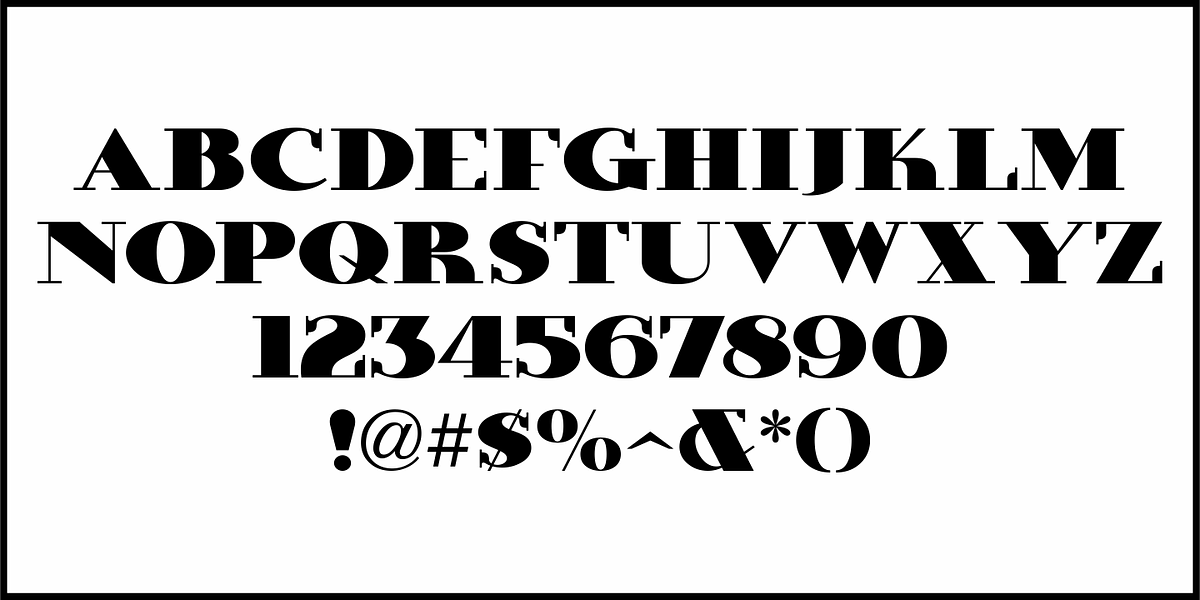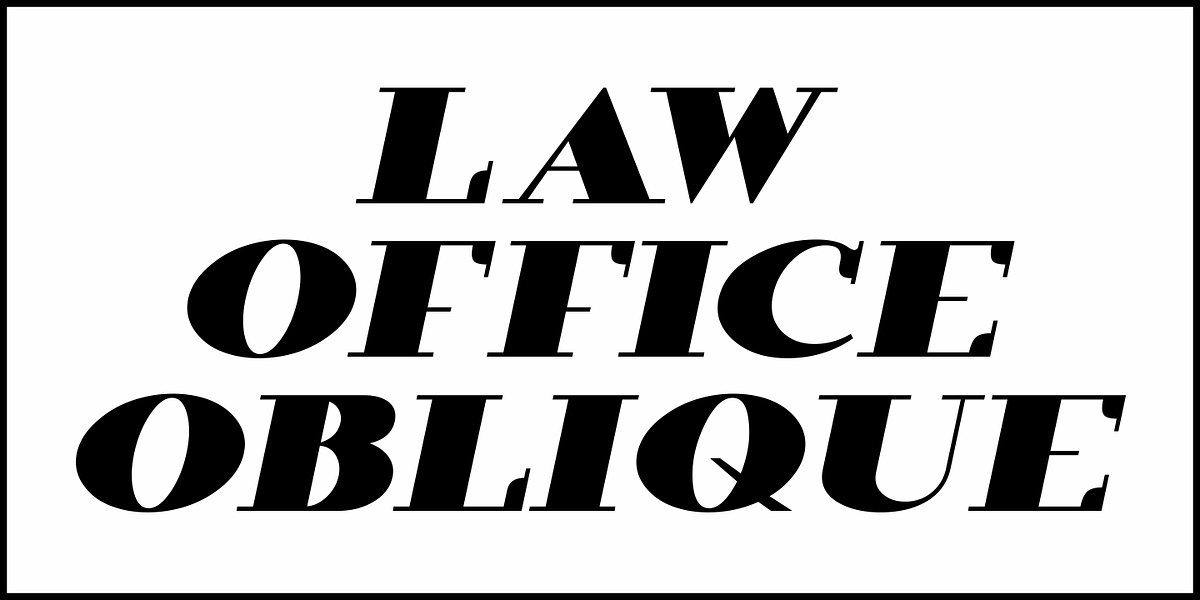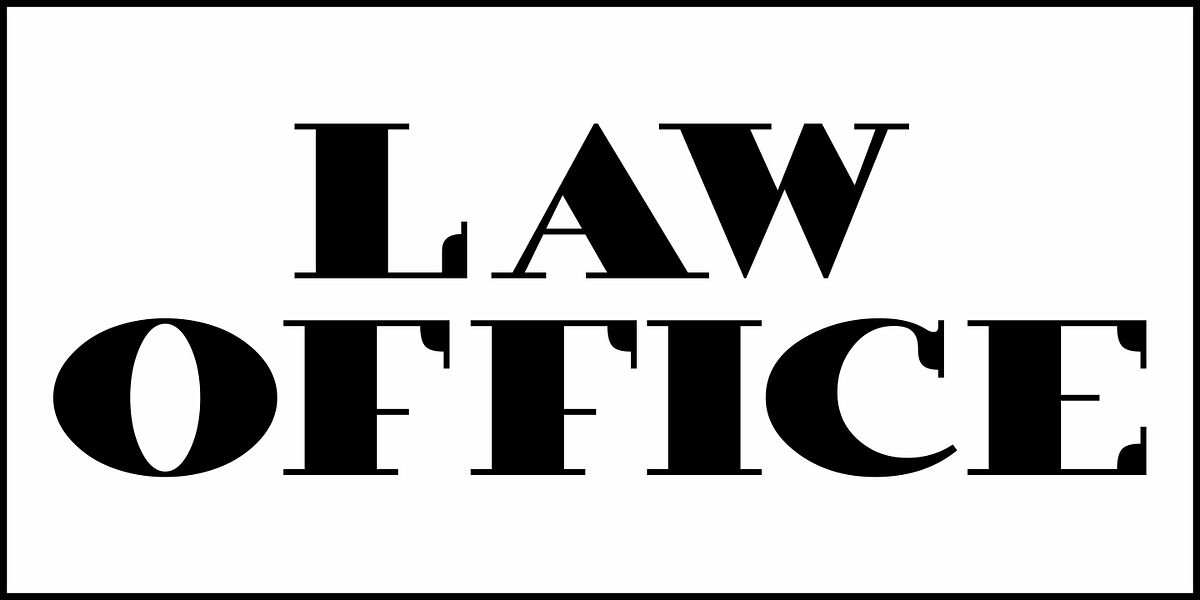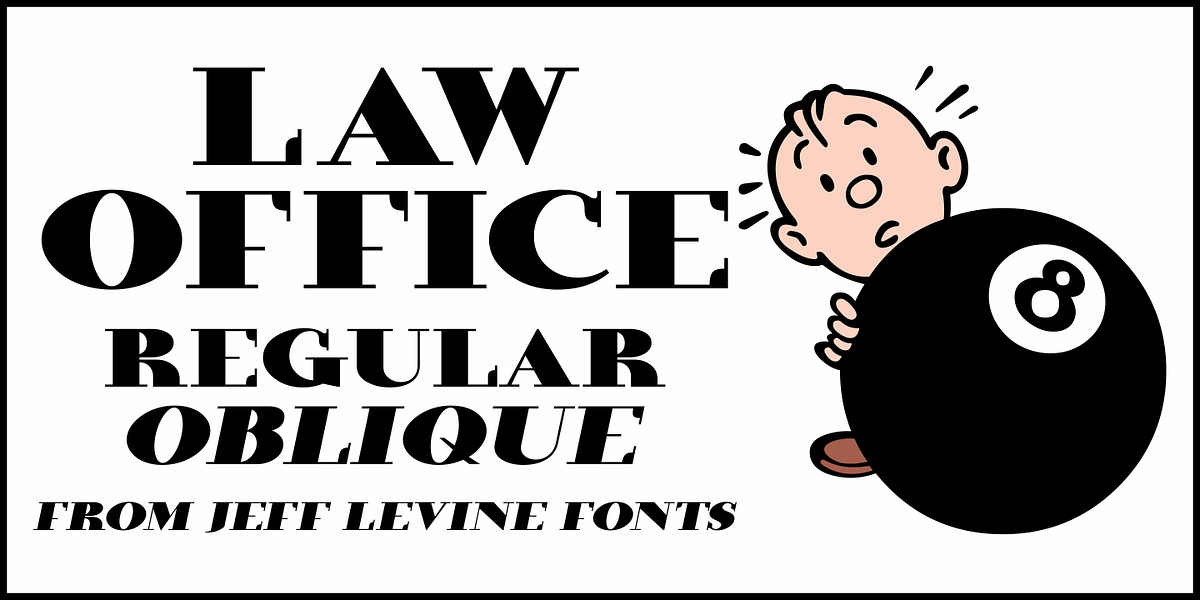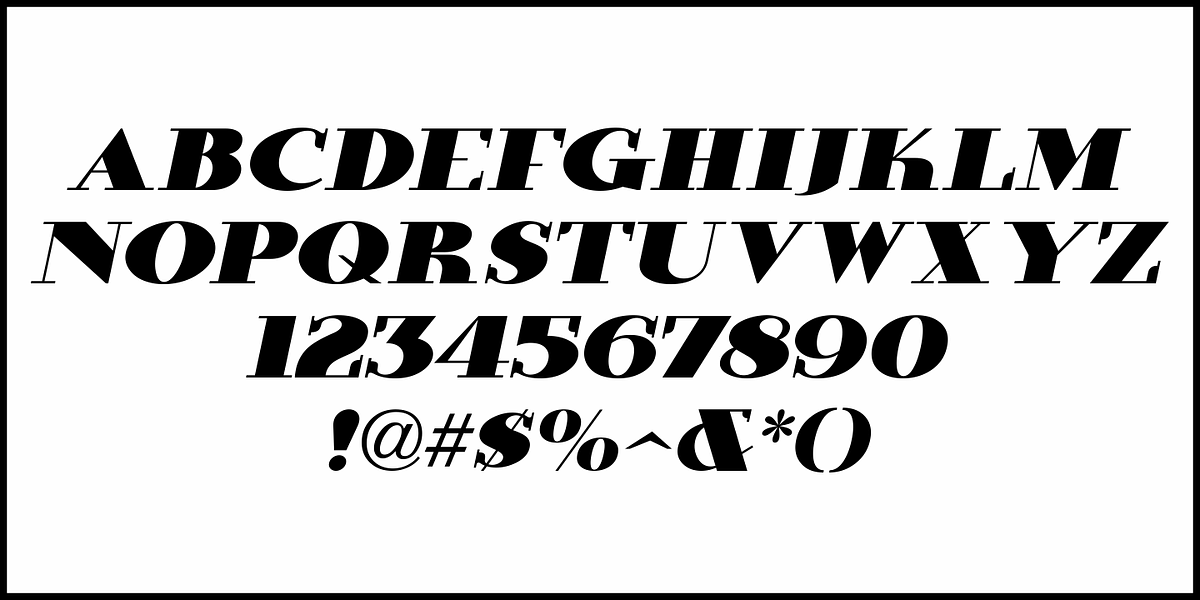
Law Office JNL
The 1960 revised edition of Sam Welo’s “Studio Handbook – Letter and Design for Artists and Advertisers” showcases the many interesting lettering designs Welo hand lettered for his book.
One such example is an extra-bold serif typeface which is now available as Law Office JNL, which is available in both regular and oblique versions.